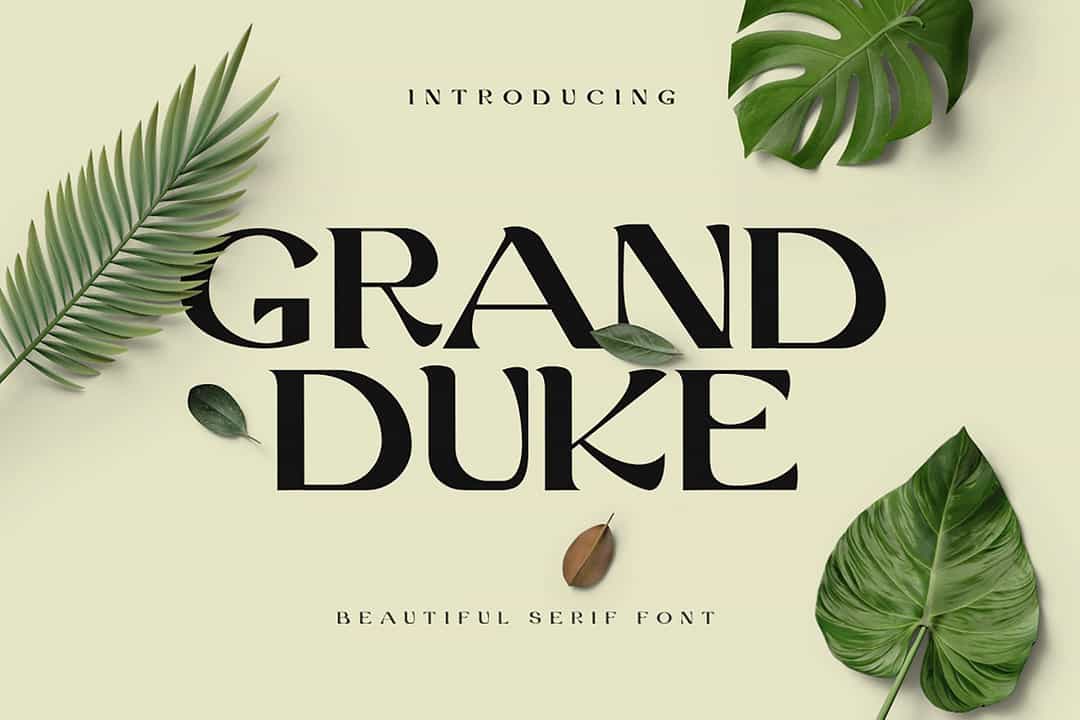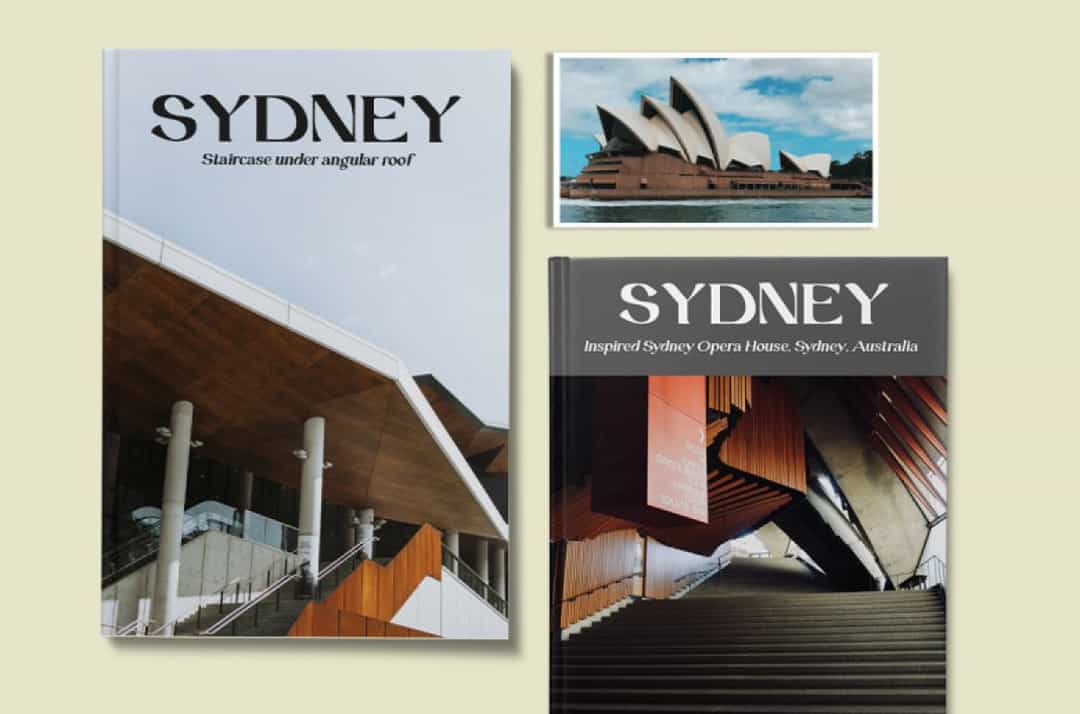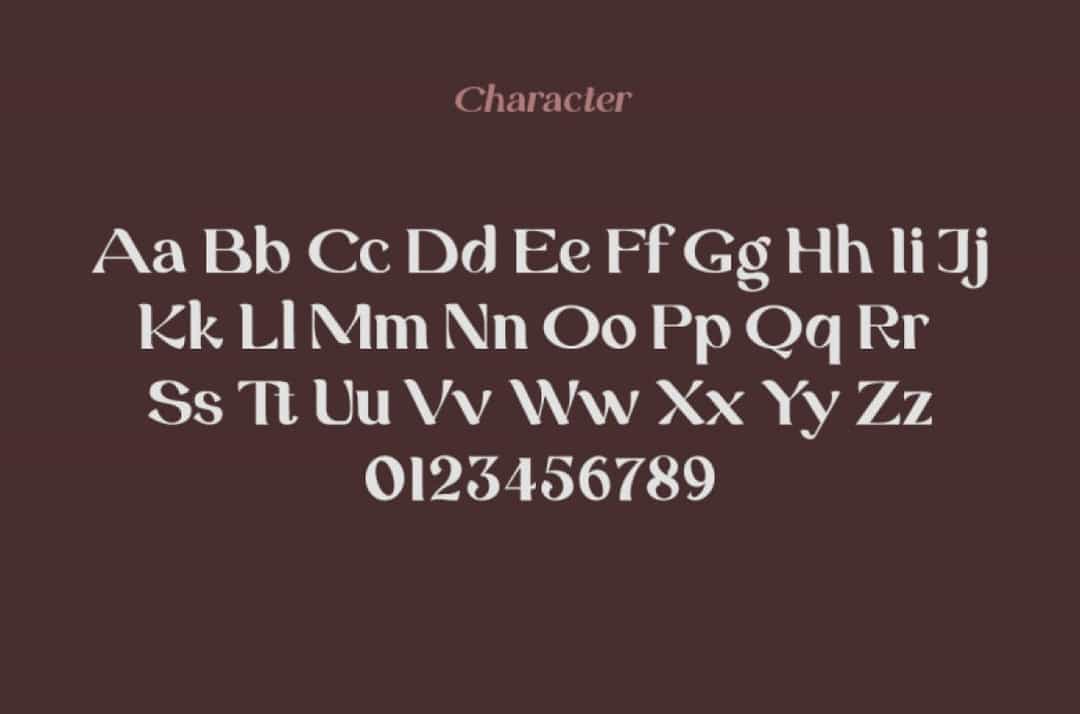
Grand Duke is a stylish and exquisite serif font with an extravagant look and is recommended for use in headings and posters, greetings cards and invitations, logos and documents, covers and magazines with nature themes or packaging for products, botanical design or as captions for images.